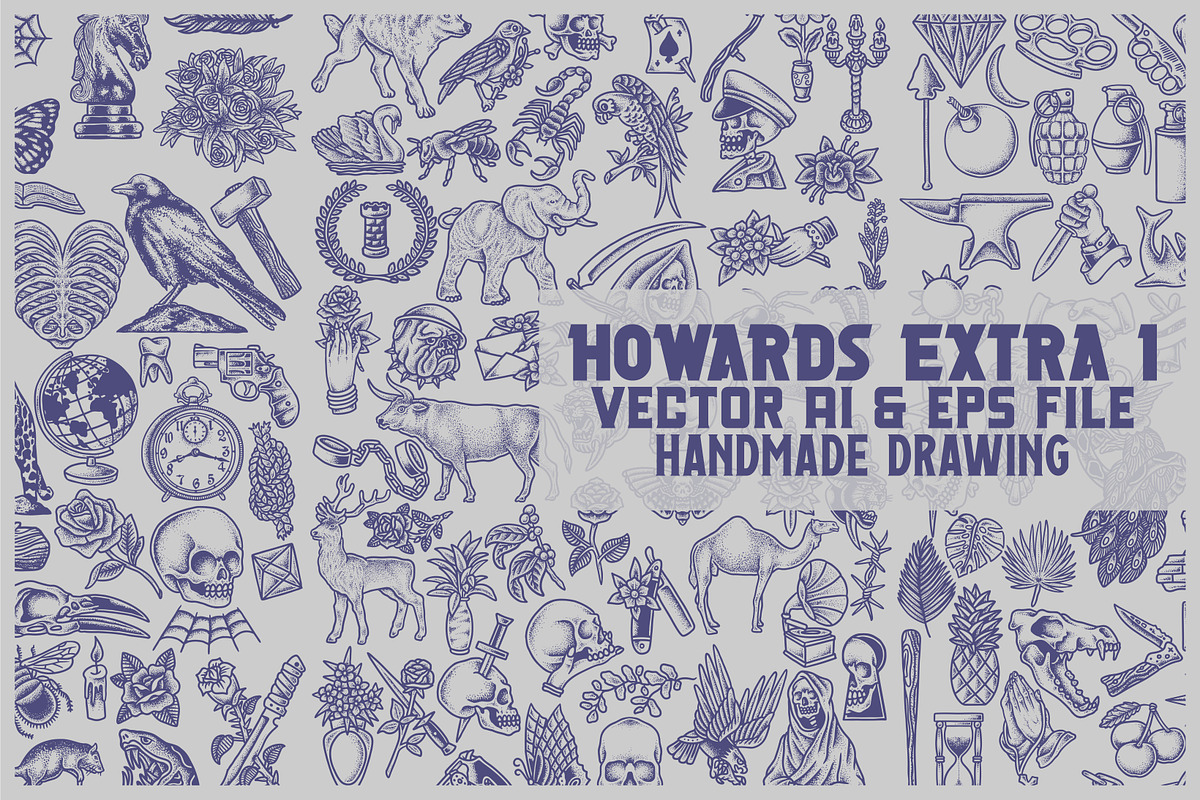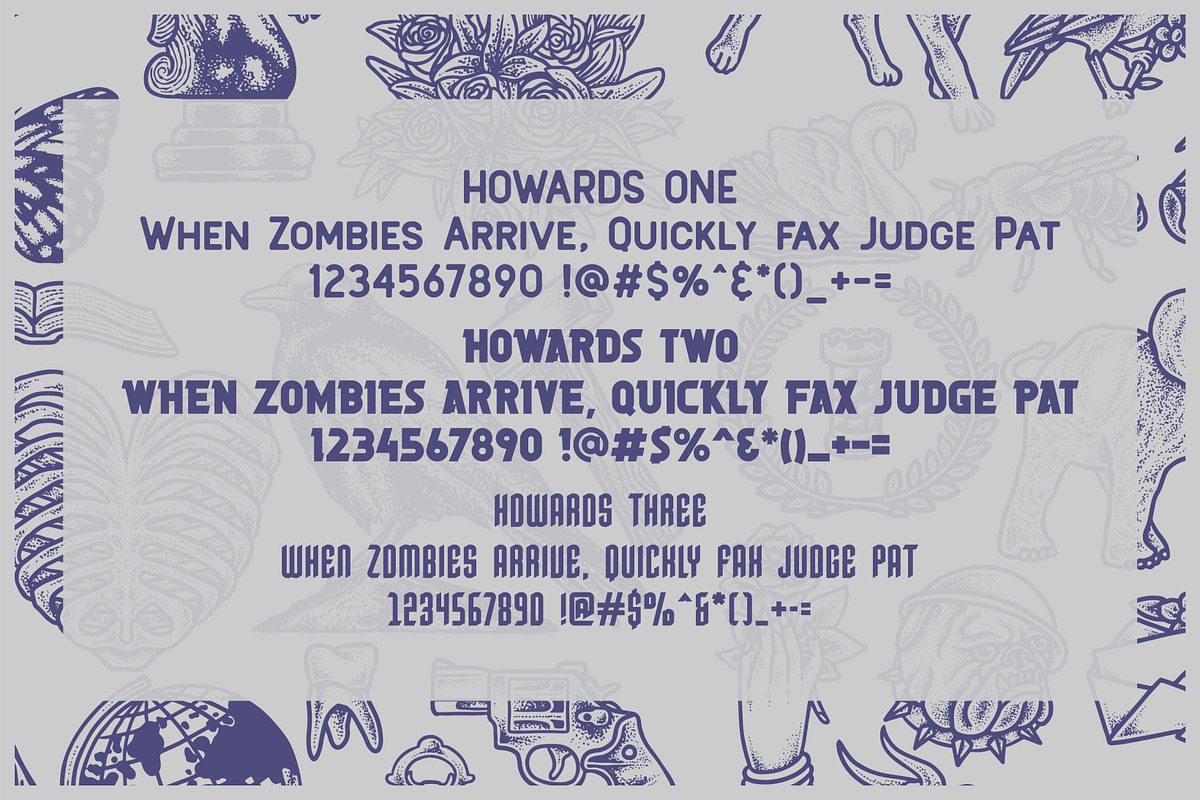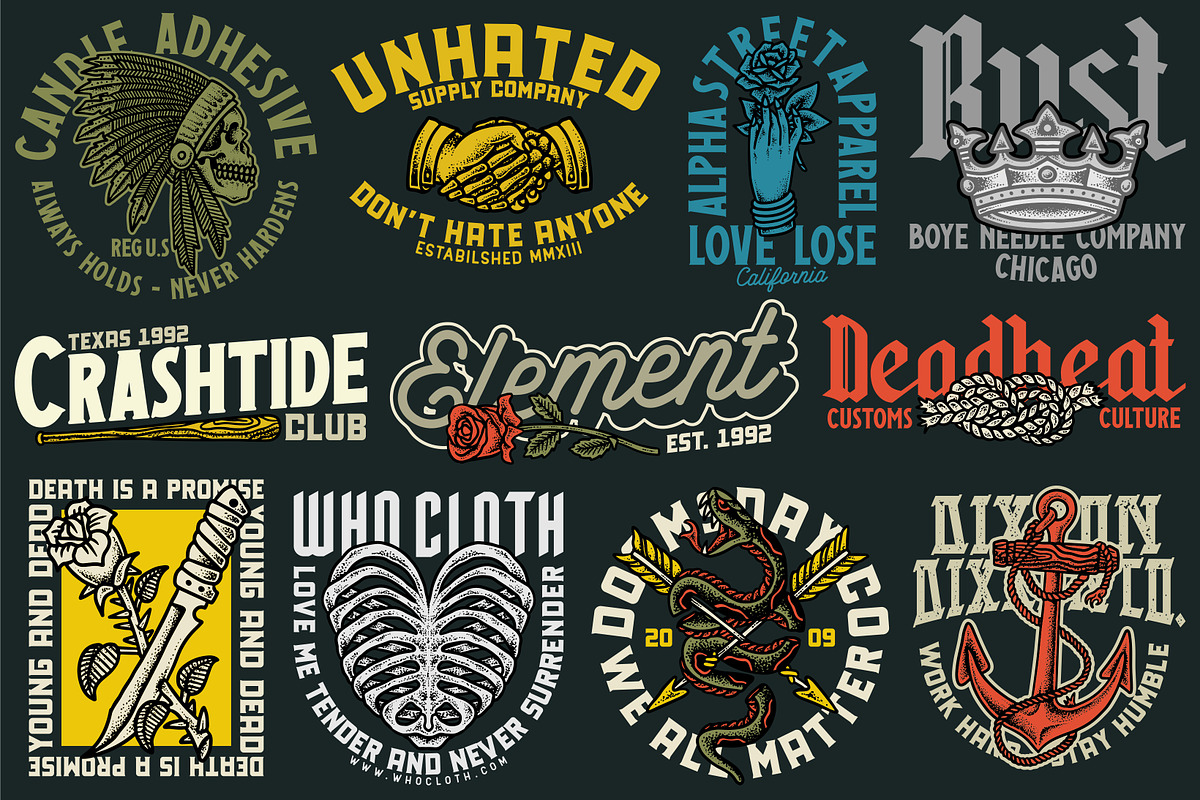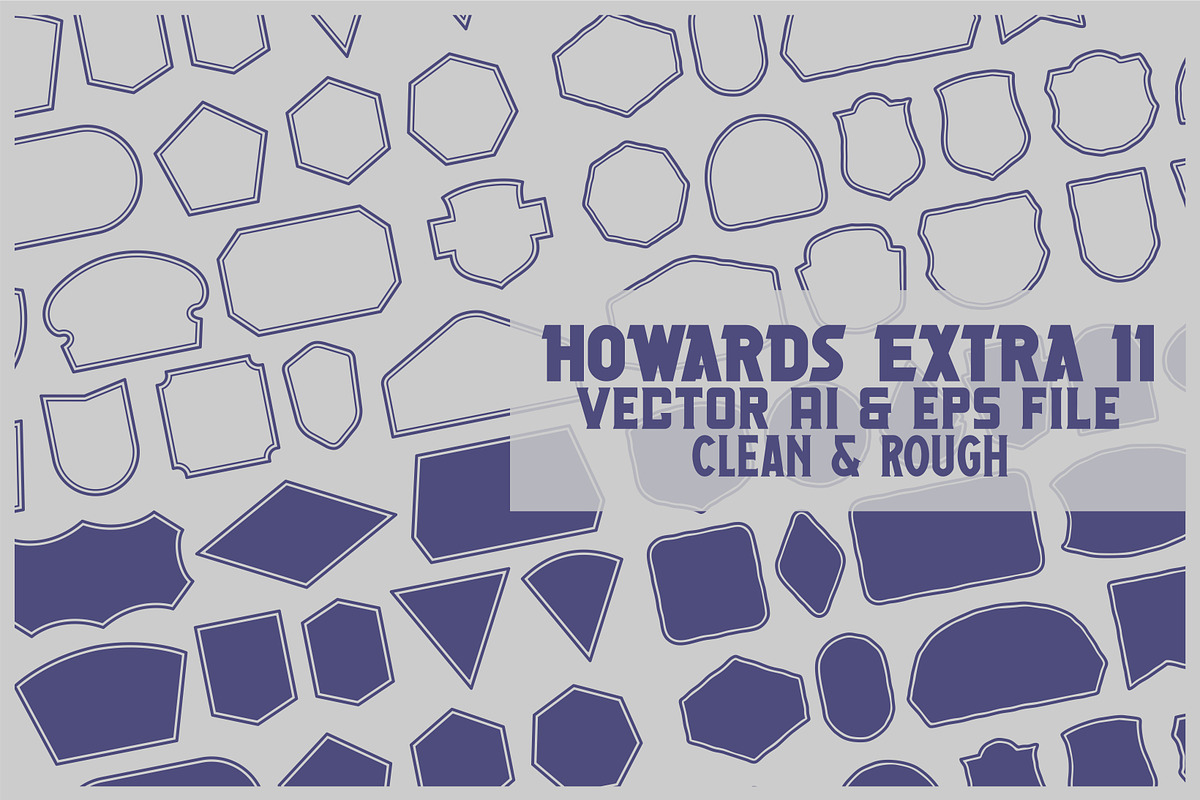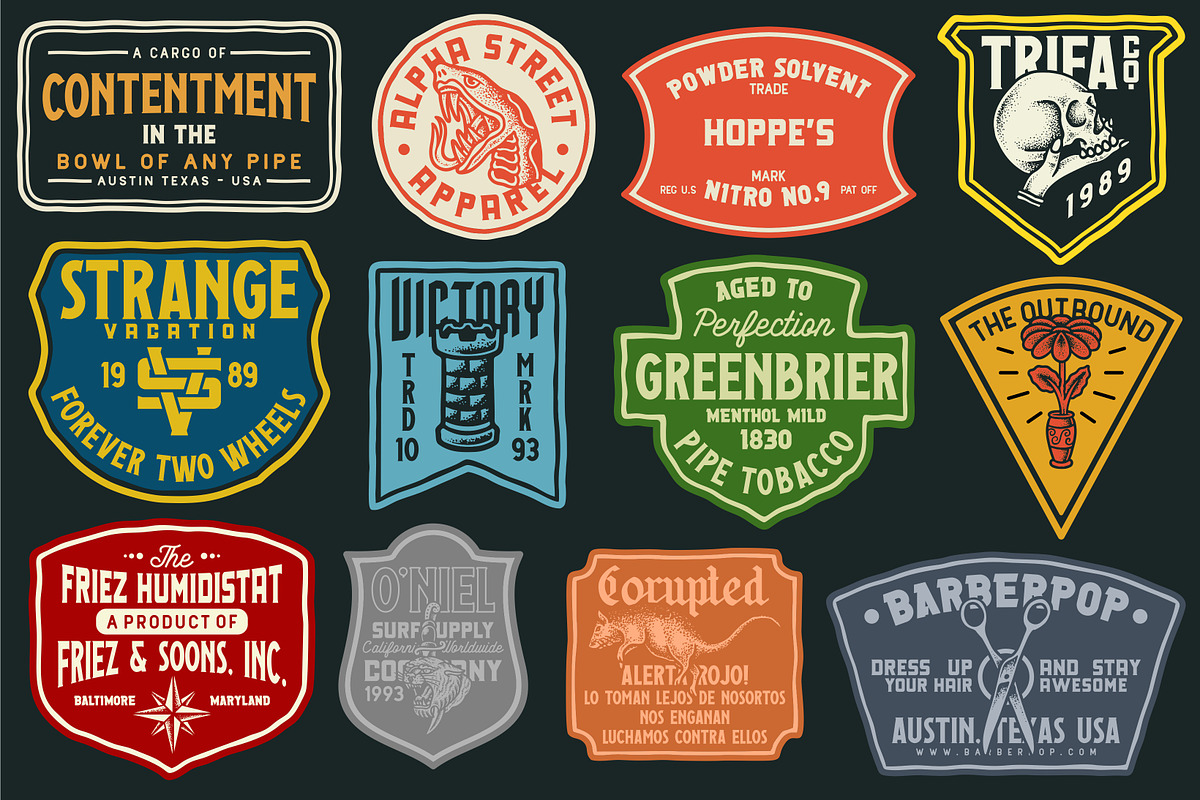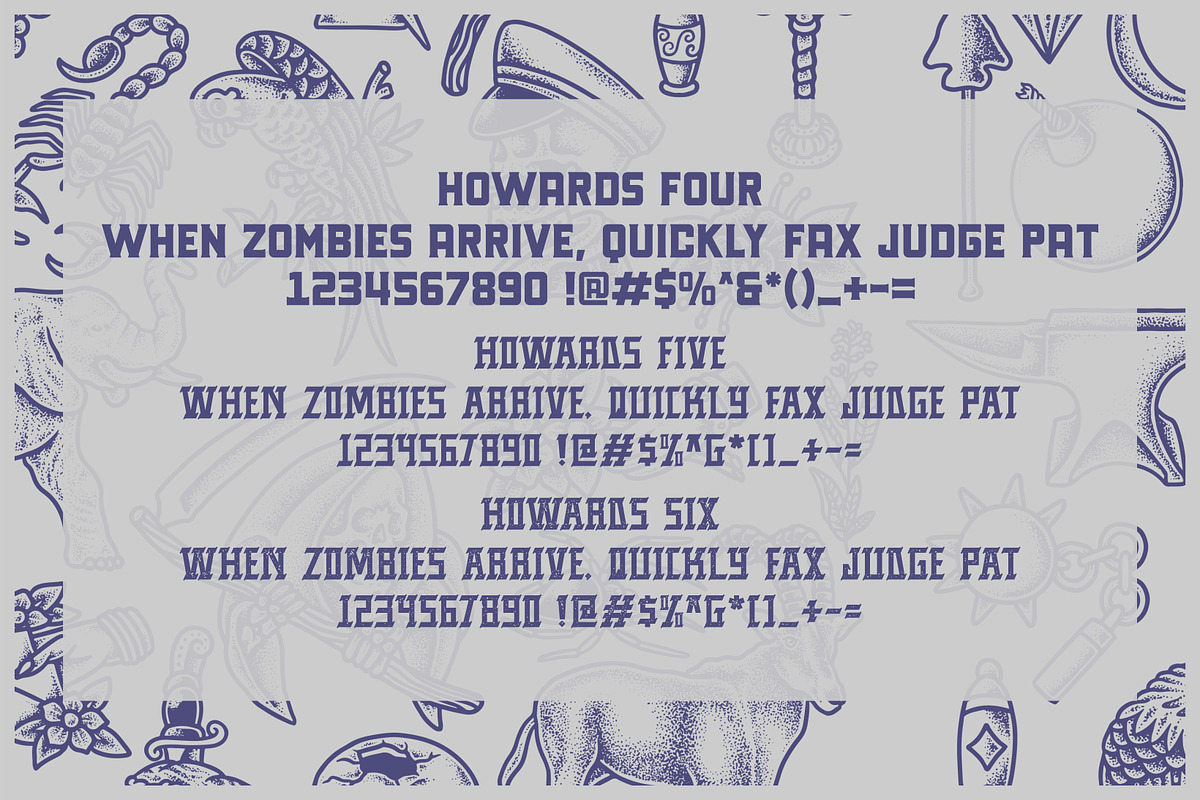
Howards Font Family + Extras
Howards Font Family With 300+ Vector Collections (Update)
Howards Font Family includes 9 fonts that have different styles from each other but at the same time perfectly paired when used together create your best design with this font for any purposes suck as t-shirts, sign, sticker, logos, poster design, magazine, mark, and others. This is essentially 9 fonts being released together instead of separately. 9 Fonts, 300+ Vector Illustrations, Badges and Labels and 50 Logo template (update)
All the designs and contained in the poster use Howards font family!